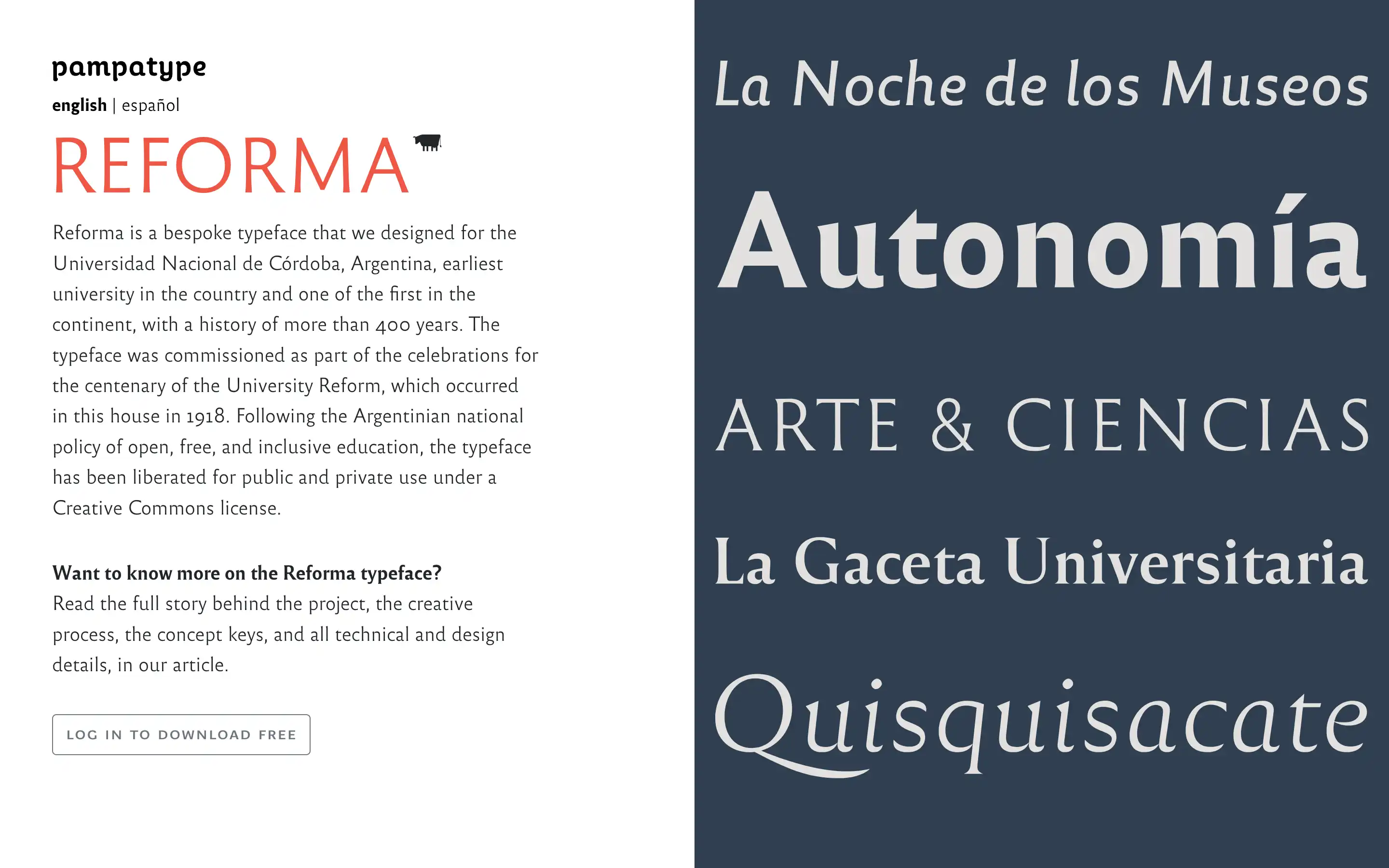
Reforma typeface for Universidad Nacional de Córdoba.
A New Typeface for a Historic University
PampaType Font Foundry recently designed a bespoke typeface called Reforma for the Universidad Nacional de Córdoba in Argentina. At over 400 years old, it is one of the country’s earliest and most historic universities.
The typeface was commissioned as part of the celebrations for the 100th anniversary of the University Reform, which occurred on the university’s campus in 1918. This reform established open, free, and inclusive education policies that still guide the university today.
To honor this important event and the university’s progressive values, PampaType created Reforma – a unique and distinctive typeface. They designed it with careful consideration for the university’s history and spirit of education access.